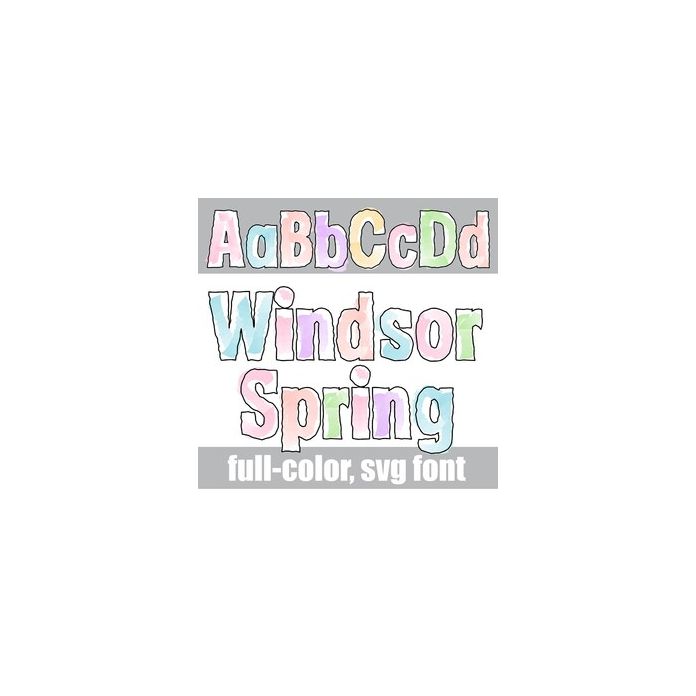
This full-color font features a black, hand-written outline filled with pastel watercolors. There is an alt case w/ additional colors you can access through your system or Silhouette's glyph map.